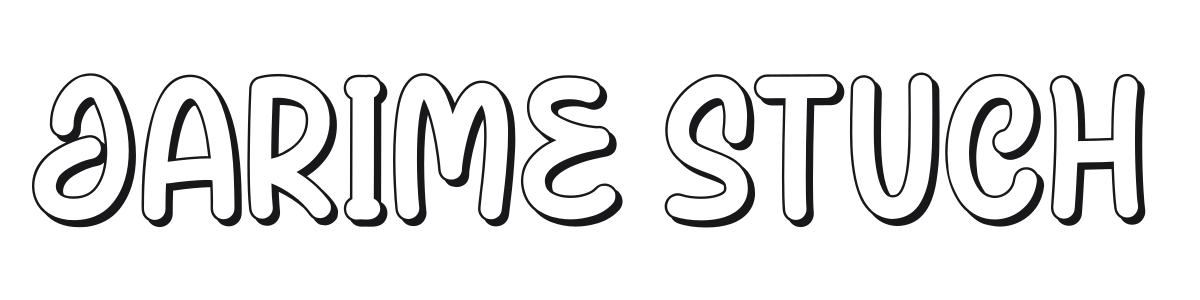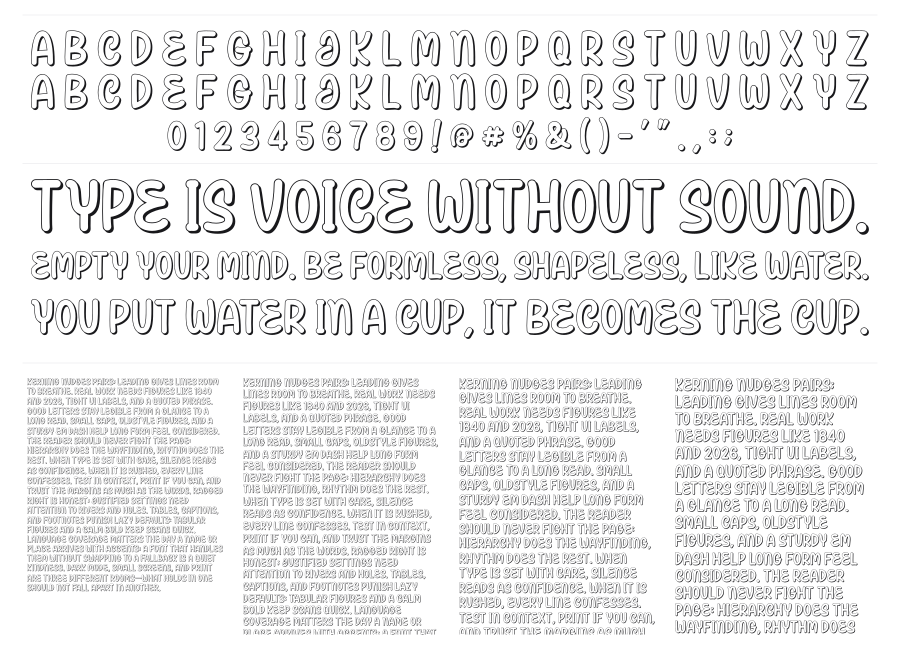
Jarime Stuch
Jarime Stuch is a bold rounded display font with a chunky inline outline and drop shadow built right into the design. Every curve is exaggerated and soft, giving the whole typeface a cartoon energy that reads instantly as fun. It suits children's content, game titles, and casual brand identities where personality matters more than refinement.